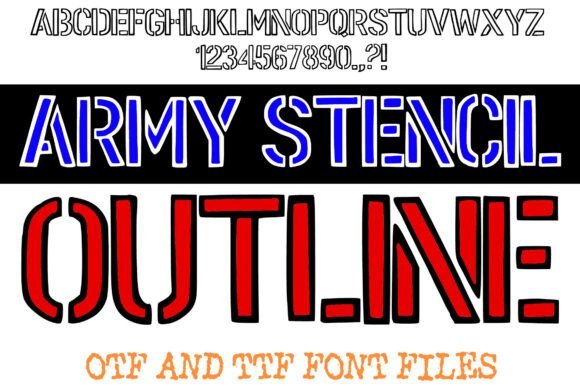
Designing with Grit: Unleashing the Power of Army Stencil Outline Font
Do you remember the rush of excitement when you first stumbled upon a vintage military poster or a tactical gear catalog? The bold, rugged typography that seemed to scream strength and discipline? That’s the essence of the Army Stencil Outline Font, a font that embodies the spirit of adventure and resilience.
This font is more than just a design element – it’s a statement piece that exudes confidence and modernity. With its outlined stencil design and clean geometric structure, Army Stencil Outline Font is perfect for logos, packaging, posters, apparel, and print designs that require a strong, disciplined aesthetic. Whether you’re working on military branding, adventure sports, or urban streetwear, this font is a valuable addition to your design toolkit.
- Unique Characteristics: Distinctive stencil outline style, reminiscent of classic military typography, with clean lines and bold strokes
Army Stencil Outline Font Review
Overall, I think the Army Stencil Outline Font is a decent choice for designers looking for a bold, stencil font. Here are some things that work well:
- ✨ The font is highly customizable, with a wide range of styles and sizes available.
- ✨ It’s perfect for creating attention-grabbing headlines or titles that need to stand out from the crowd.
- ✨ The stencil design gives it a unique, industrial feel that can add a lot of character to a design.
- ⚠️ The font may be too bold for some designs, making it difficult to read in certain contexts.
- ⚠️ It’s not as versatile as some other fonts, and may not be suitable for body text or smaller text sizes.
- ⚠️ Some users may find the stencil design too busy or distracting.
Overall, I think the Army Stencil Outline Font is a good choice for designers who want to add a bold, industrial touch to their designs. However, it’s not a one-size-fits-all solution, and designers should carefully consider the context and purpose of their design before choosing this font.
The Army Stencil Outline Font is ideal for creating bold, military-inspired designs. Some common use cases include:
- Creating military-themed posters and flyers.
- Designing military uniforms and equipment labels.
- Adding a rugged, industrial feel to your designs.
Remember to experiment with different font sizes and styles to achieve the desired look.